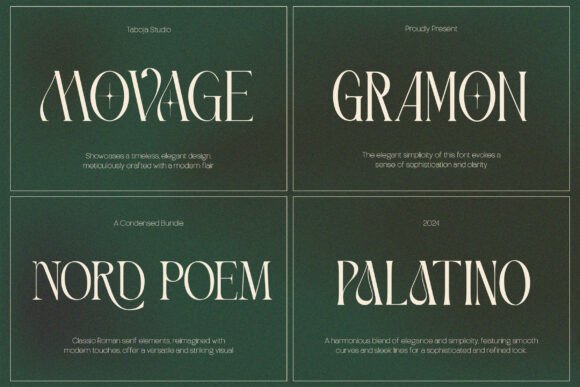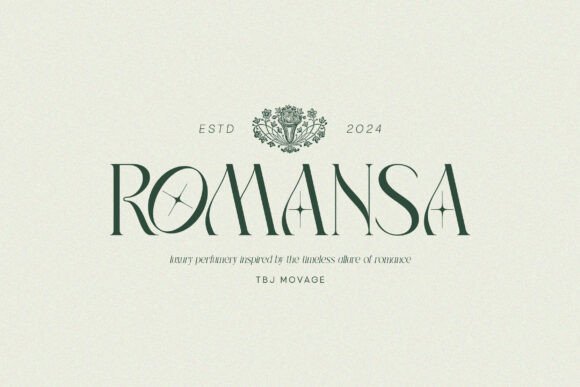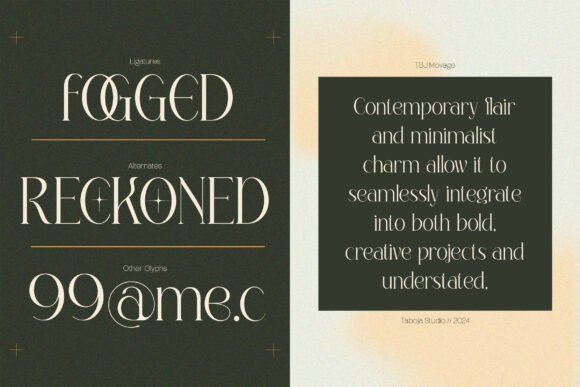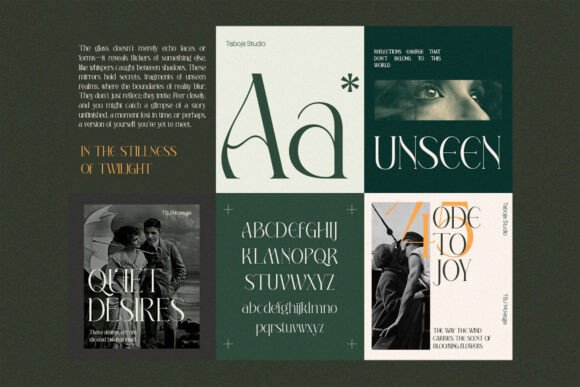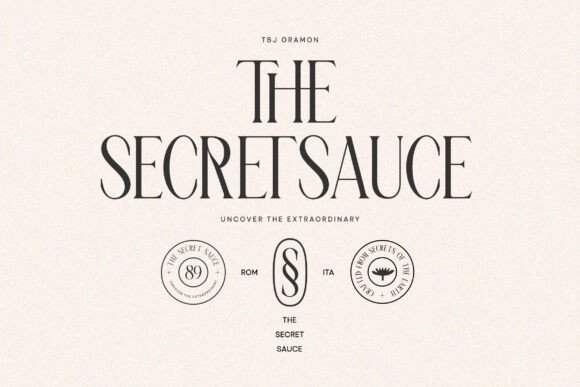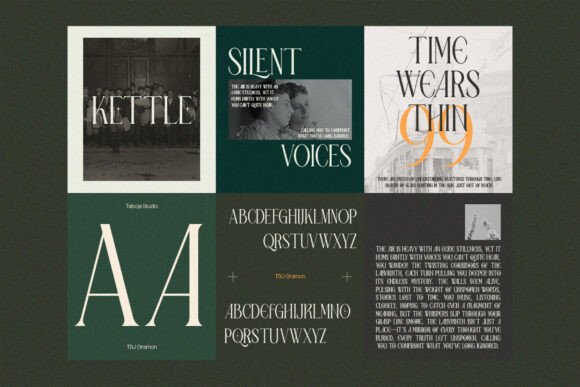
Unlock the Power of Elegant Typography
Have you ever found yourself stuck in a design rut, searching for the perfect font to elevate your project? You’re not alone. We’ve all been there, pouring over font libraries, trying to find that elusive combination of style and practicality. But what if you could have it all in one place?
Enter Elegant Condensed Volume IV – The Ultimate Serif Font Bundle for Headlines and Logos. This versatile font bundle features four beautifully crafted condensed serif typefaces designed to take your branding projects to the next level. With Elegant Condensed Bundle Vol Iv Font, you’ll have the tools you need to create stunning headlines, logos, and branding materials that truly reflect your unique style. Whether you’re a seasoned designer or just starting out, this font bundle is an invaluable resource that’s sure to become a staple in your creative arsenal.
Elegant Condensed Bundle Vol Iv Font Key Features
- Unique Characteristics: Elegant and condensed design, perfect for titles, headings, and short paragraphs
Elegant Condensed Bundle Vol Iv Font Review
I’ve had the chance to work with the Elegant Condensed Bundle Vol Iv font, and I must say it’s a solid choice for various design projects. Here are my thoughts on what works well and what doesn’t.
- Highly versatile: This font can be used for a wide range of designs, from corporate materials to personal projects.
- Multiple styles: The bundle includes various condensed styles, making it easy to find the perfect fit for your design.
- Legibility: The font is well-designed for reading, even in smaller sizes.
- Not ideal for script-heavy designs: While the font is great for body text, it may not be the best choice for designs that rely heavily on script or cursive text.
- Not as unique: While the font is well-designed, it may not stand out as much as some other fonts in the market.
Overall, I’d say the Elegant Condensed Bundle Vol Iv font is a solid choice for designers who need a reliable, versatile font. While it may not excel in every area, it’s a great addition to any design toolkit.
Here are some tips for getting the most out of the Elegant Condensed Bundle Vol Iv Font:
- Use the font in combination with other elegant fonts for a cohesive look.
- Use the font in headings and subheadings to create a clear hierarchy of information.
The Elegant Condensed Bundle Vol Iv Font is well-suited for:
- Headings and subheadings
Alternatives to Elegant Condensed Bundle Vol Iv Font
Montserrat Font is a sans-serif typeface designed for digital use. It’s a great choice for designers who want a clean and modern look. Montserrat is more geometric and has a more aggressive feel compared to Elegant Condensed Bundle Vol Iv Font.
Use Montserrat when you need a bold and modern font for digital products, apps, or websites.
2. Merriweather Sans Font
Merriweather Sans Font is a classic serif typeface with a modern twist. It’s a great choice for designers who want a font that’s both elegant and readable. Merriweather Sans is more classic and has a warmer feel compared to Elegant Condensed Bundle Vol Iv Font.
Use Merriweather Sans when you need a font that’s both elegant and readable for print materials, such as books, magazines, or brochures.
Open Sans Font is a modern sans-serif typeface designed for digital use. It’s a great choice for designers who want a clean and neutral look. Open Sans is more minimalist and has a more neutral feel compared to Elegant Condensed Bundle Vol Iv Font.
Use Open Sans when you need a font that’s both clean and neutral for digital products, apps, or websites.
Lato Font is a modern sans-serif typeface designed for digital use. It’s a great choice for designers who want a font that’s both elegant and readable. Lato is more rounded and has a more friendly feel compared to Elegant Condensed Bundle Vol Iv Font.
Use Lato when you need a font that’s both elegant and readable for digital products, apps